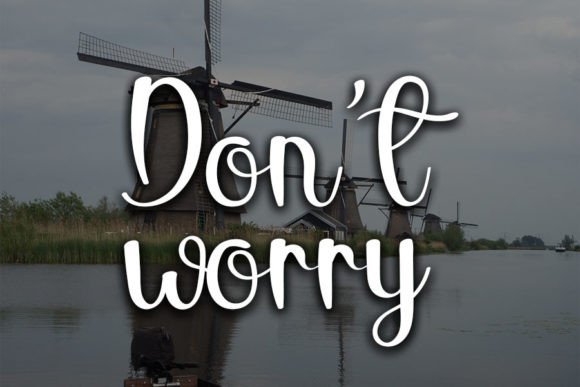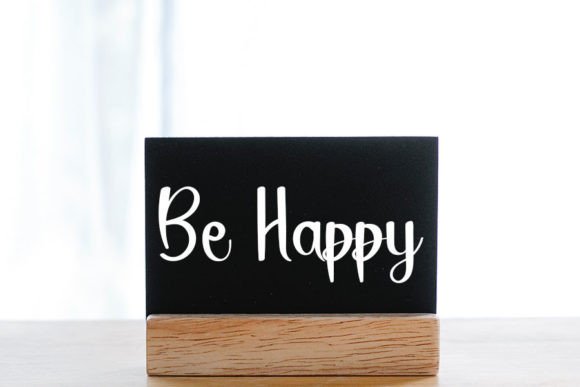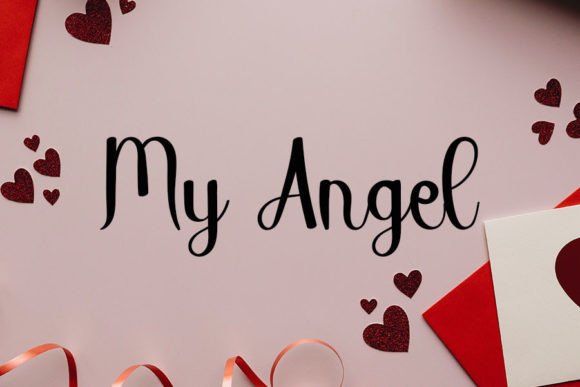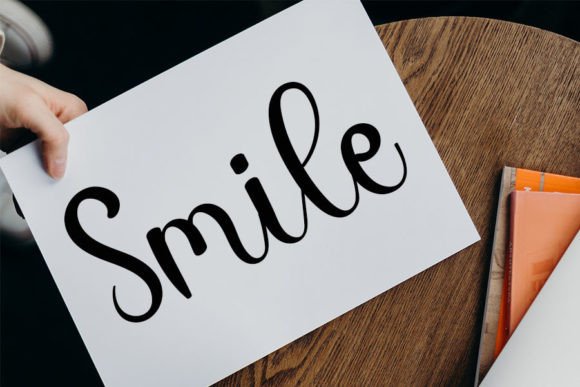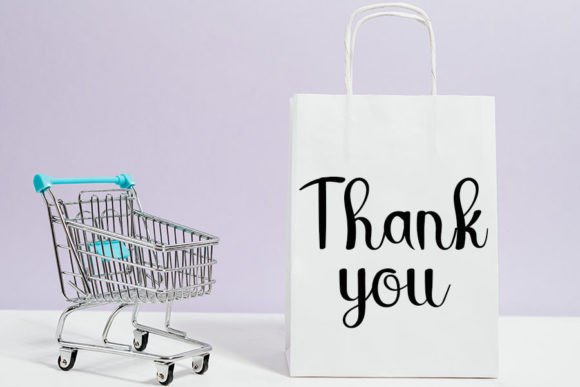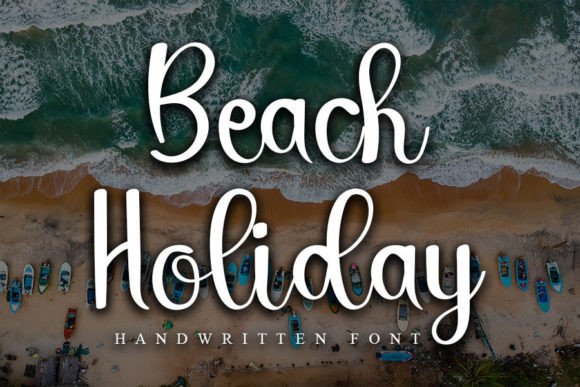
Introducing Beach Holiday Font: The Perfect Blend of Elegance and Quirkiness
Are you looking for a font that captures the essence of a beach holiday? Something that exudes elegance, yet has a playful touch? Look no further than Beach Holiday Font, a vibrant and handwritten typeface that is sure to elevate your designs to the next level. In this article, we’ll dive into the features and benefits of Beach Holiday Font, and explore how it can be used in various design projects.
What is Beach Holiday Font?
Beach Holiday Font is a carefully crafted, handwritten font that combines the perfect blend of elegance and quirkiness. Its clean lines and subtle imperfections give it a unique, organic feel that is reminiscent of a relaxing beach vacation. This font is ideal for designers, crafters, and DIY enthusiasts who want to add a touch of personality to their work.
Key Features of Beach Holiday Font
• Handwritten with love: Beach Holiday Font is meticulously handcrafted with attention to detail, ensuring that each letter and character has a personal touch.
• Colorful and vibrant: This font is designed to bring a pop of color to your designs, making it perfect for social media posts, logos, and branding materials.
• Clean and elegant: Beach Holiday Font has a sophisticated feel that works well for a variety of design projects, from formal to informal.
• Quirky and playful: This font has a playful side, making it ideal for crafty DIY projects, invitations, and other creative endeavors.
Uses for Beach Holiday Font
Beach Holiday Font is an incredibly versatile typeface that can be used in a wide range of design projects. Here are some ideas to get you started:
• Logos and branding: Use Beach Holiday Font to create a unique and memorable logo for your business or brand.
• Social media posts: Add a touch of personality to your social media posts with this colorful and engaging font.
• Crafty DIY projects: Beach Holiday Font is perfect for crafters who want to add a personal touch to their DIY projects, such as handmade cards, gift tags, and scrapbooking.
• Invitations and events: Use this font to create eye-catching invitations for weddings, parties, and other special events.
Why Choose Beach Holiday Font?
With so many fonts available, why choose Beach Holiday Font? Here are a few reasons why this font stands out:
• Unique and distinctive: Beach Holiday Font has a one-of-a-kind feel that will set your designs apart from the rest.
• Easy to read: Despite its playful nature, Beach Holiday Font is clear and easy to read, making it perfect for body text and headings.
• High-quality design: This font is meticulously crafted to ensure that it looks great in any design project.
Font Name Beach Holiday Font
Beach Holiday Font is a beautiful and versatile typeface that is perfect for designers, crafters, and DIY enthusiasts. Its unique blend of elegance and quirkiness makes it an excellent choice for a wide range of design projects, from logos and branding to social media posts and crafty DIY projects. With its high-quality design and ease of use, Beach Holiday Font is sure to become a favorite in your design arsenal.